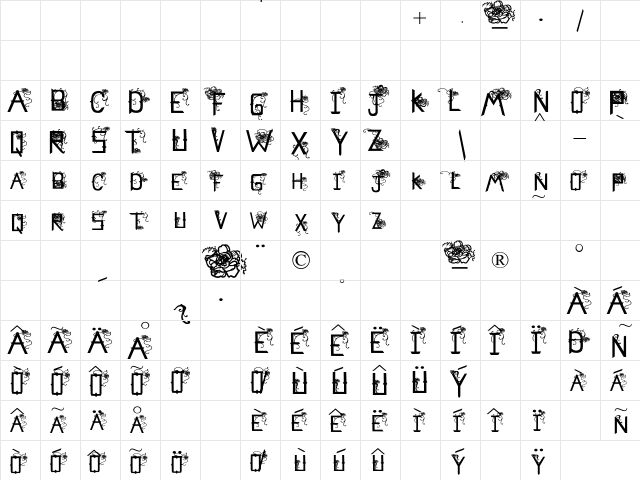
Flowers Cube Regular
Design Context for Flowers Cube Typeface
Flowers Cube is a composed and adaptable typeface that performs quietly and consistently across a wide range of design contexts.